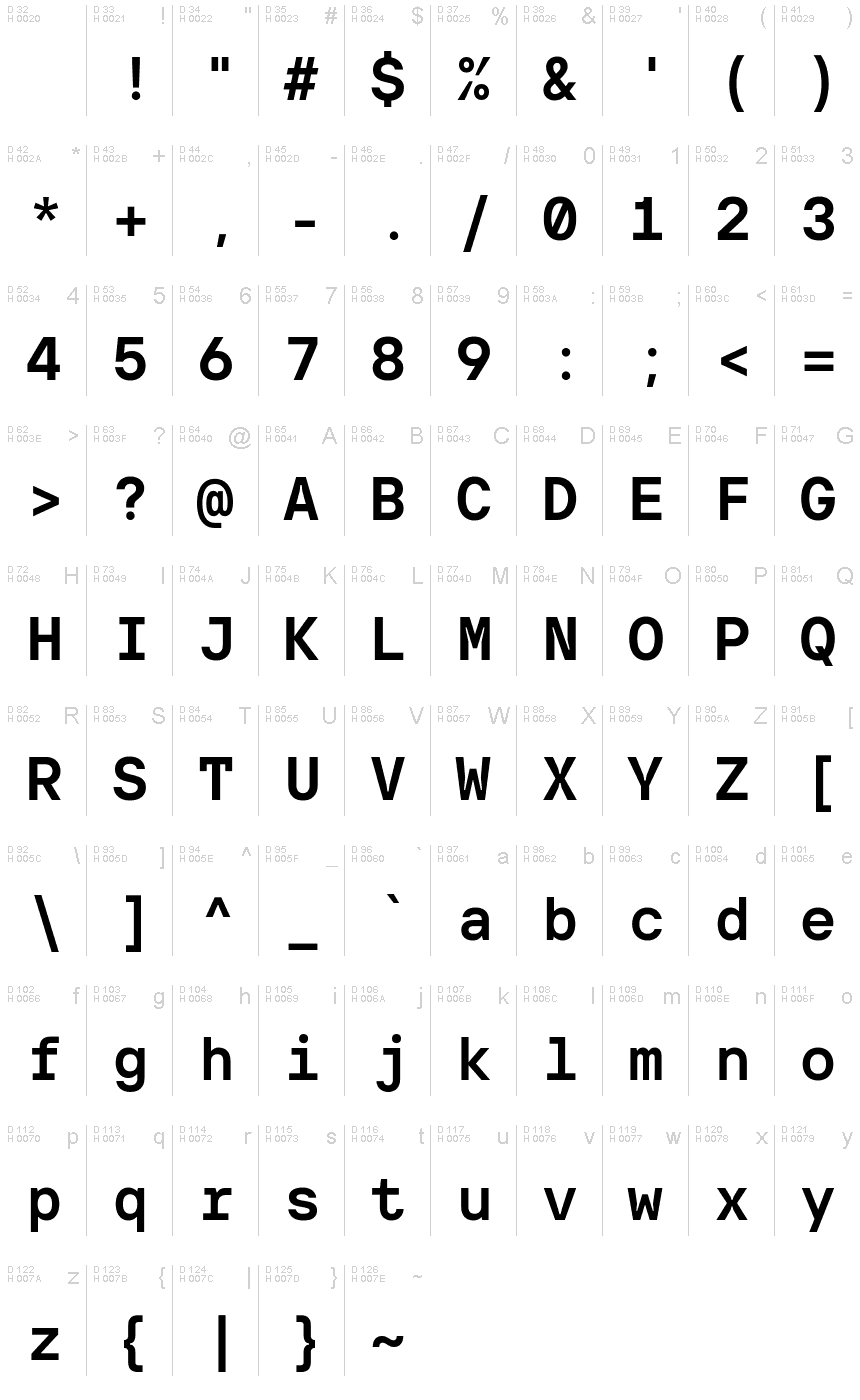
TT Interphases Pro Mono Trl Bold
TT Interphases Pro Mono Bold is a contemporary sans serif font that exudes strength and professionalism. Designed by TypeType Foundry, this semi-bold typeface showcases clean lines and geometric shapes, making it ideal for projects that require a modern and minimalist aesthetic.
Its boldness makes it perfect for headlines, logos, and branding materials, while its mono spacing allows for easy legibility in coding or programming contexts. Whether you're designing a technology blog, creating sleek corporate materials, or developing cutting-edge software interfaces, TT Interphases Pro Mono Bold is the font that will make your project stand out with its bold sophistication.